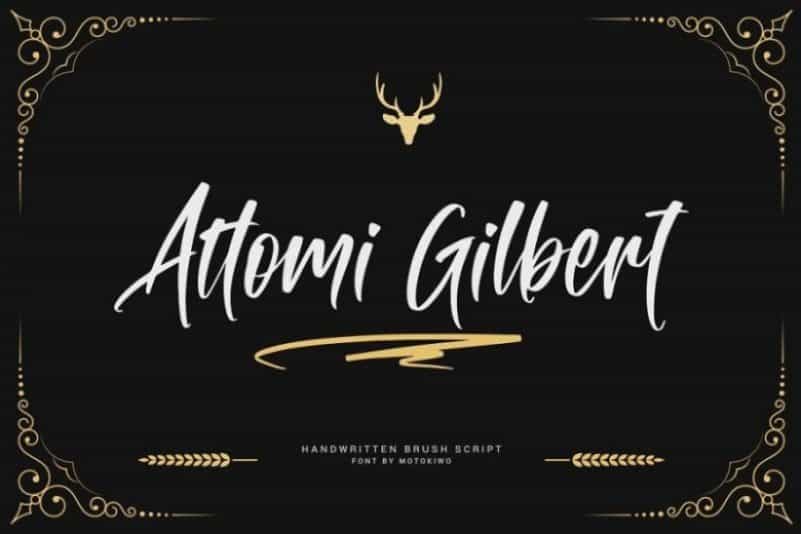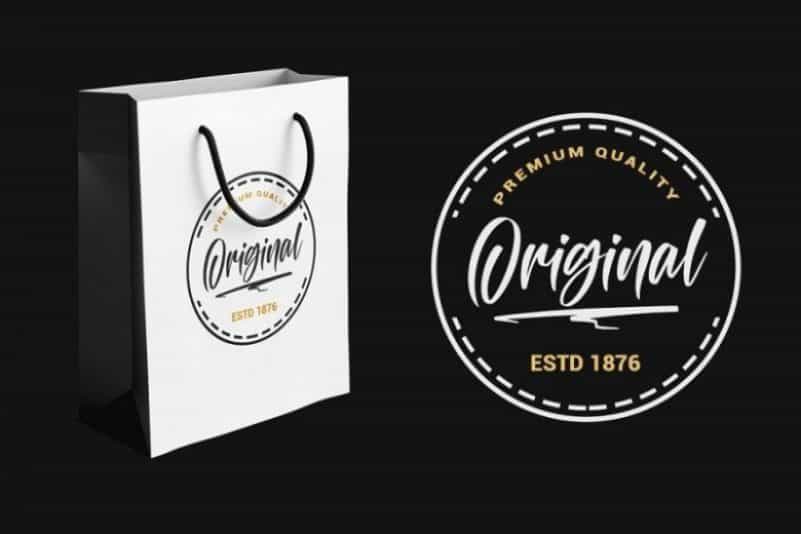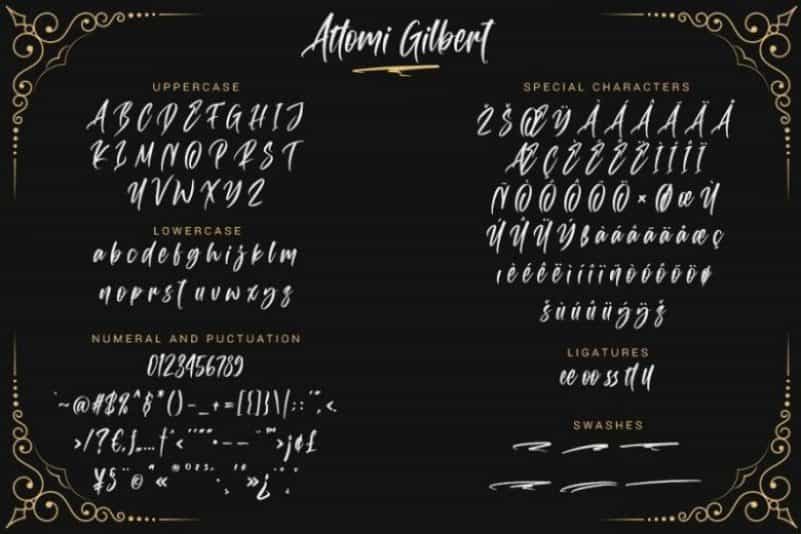
Discover Attomi Gilbert Script Font, part of the Calligraphy Handwritten collection—a versatile and unique font perfect for adding a personal touch to your projects. Download it for free and enjoy crafting designs with style, from invitations to social media posts. This font is available exclusively for personal use, giving you the freedom to create without limits. Unlock your creativity with Attomi Gilbert Script Font today!
Introducing Attomi Gilbert Font. It was designed and is distributed by Motokiwo. Organic handwriting may come from a cool brush, which is suitable for many projects and an elegant script font that has the feeling of passion in each character.